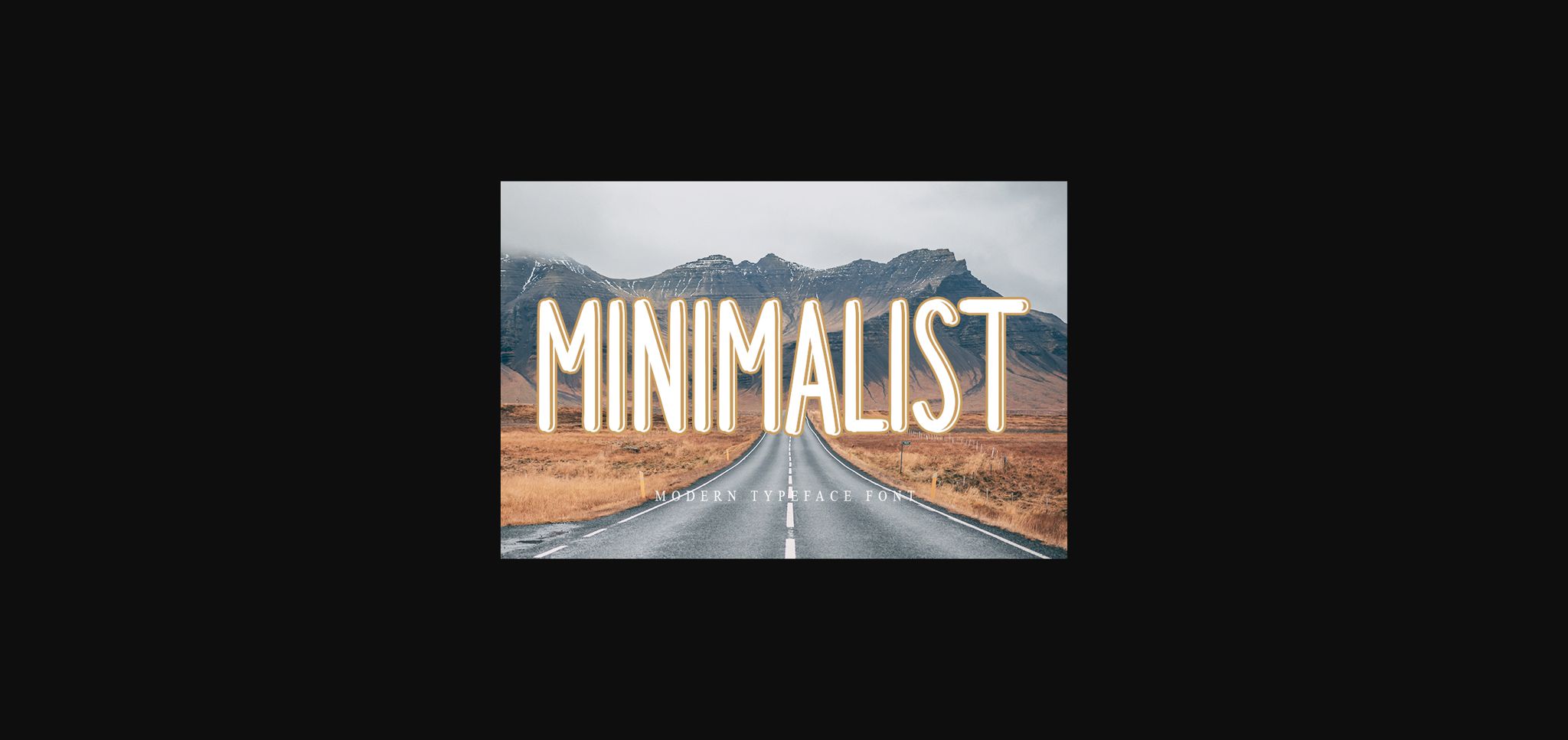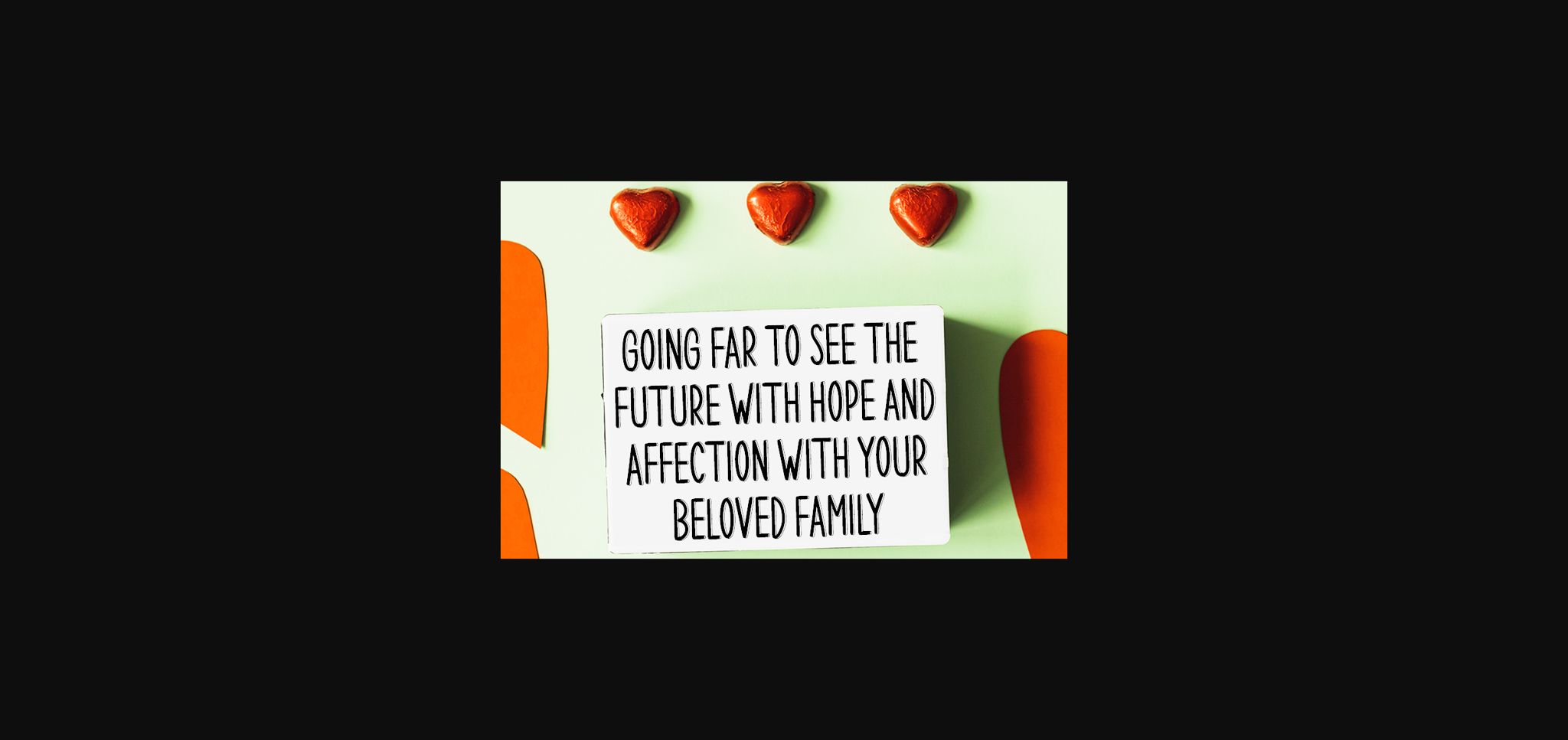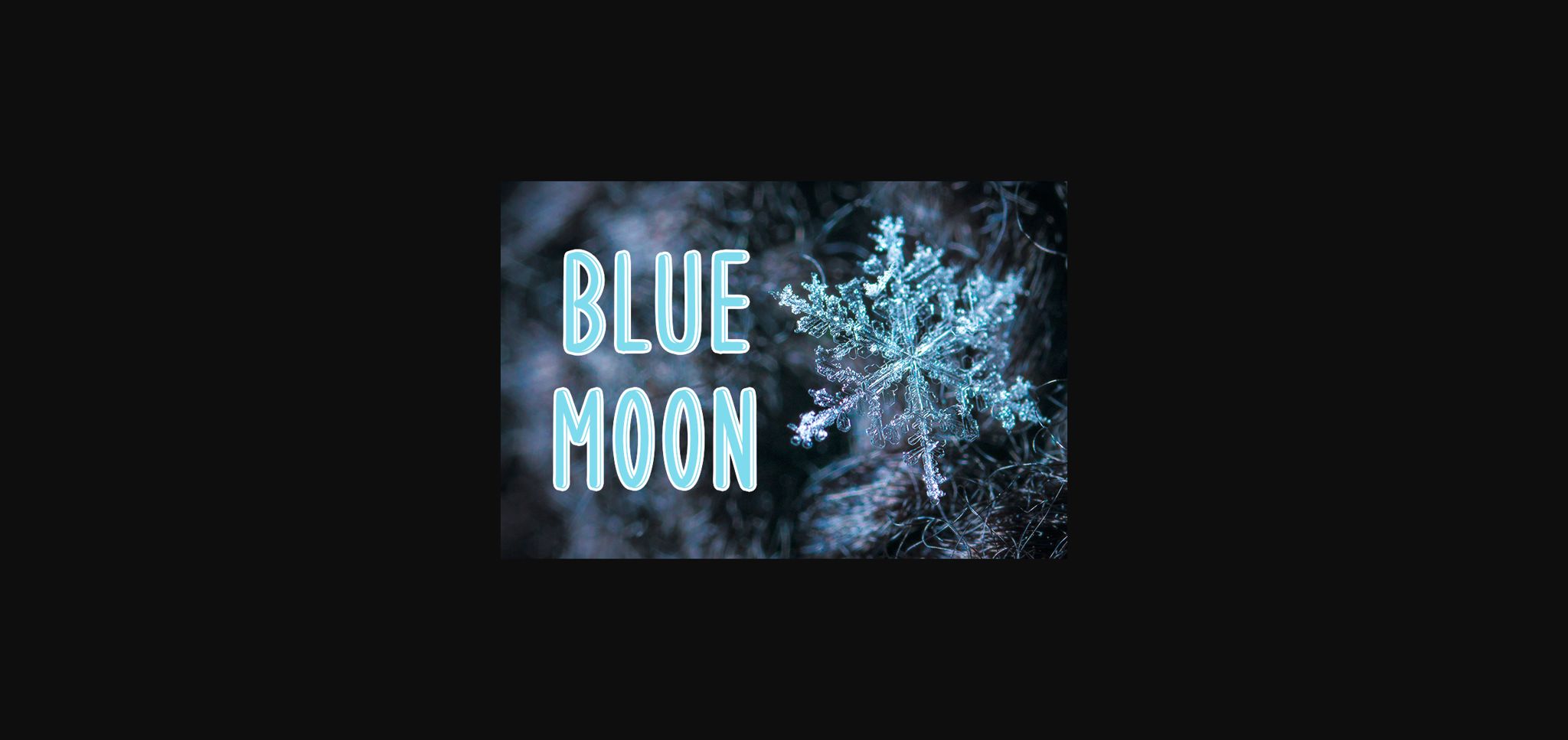
Minimalist a sweet and friendly Sans Serif Font with a shadow border on each character. Its natural and unique style makes it incredibly fitting to a large pool of designs. The only limit is your imagination!